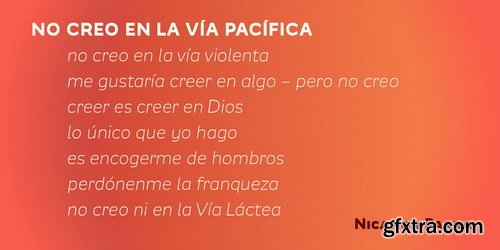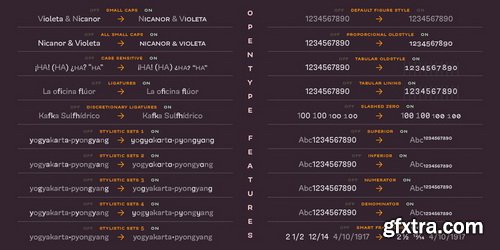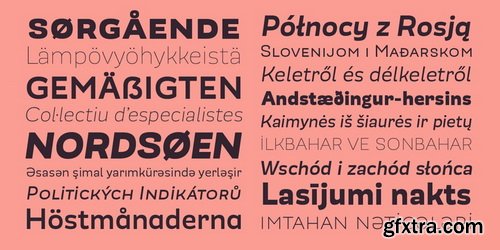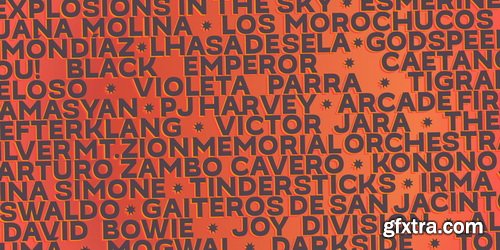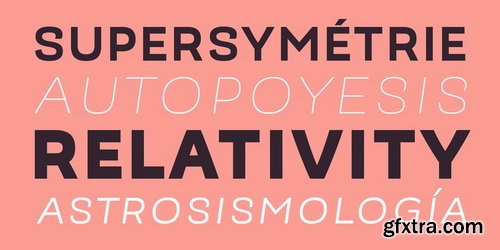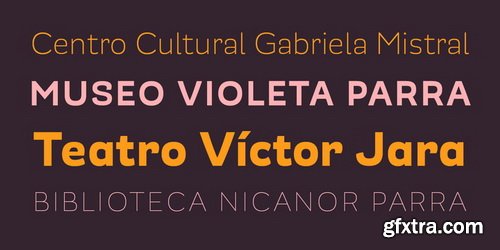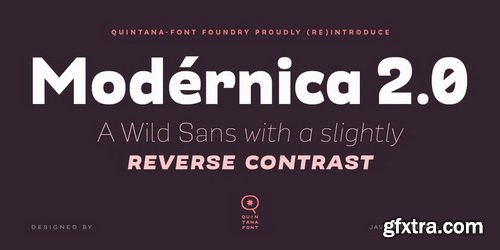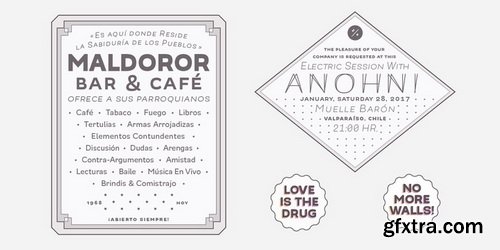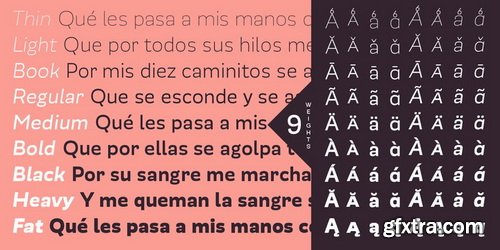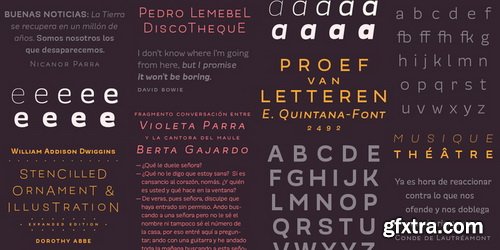
Modérnica was originally published by Latinotype in 2014. Now we (re)introduce a completely reviewed version, under the unipersonal Type Foundry of his author: Quintana-Font. Modérnica is a sans serif type including roman & oblique styles in 9 weights. At this relaunch, we’ve extended the language coverage and included a new Fat weight, tabular figures, smart fractions & arrows. We’ve improved the OpenType features adding new Stylistic Sets. Besides this, we have retuned the letters spacing in the whole family. Seeking for the best performance, we added a bit of spacing between letters in the text versions (middle weights from Book to Bold), while as for the display variants (extreme weights from Thin to Fat) we made them gain space in the light versions and loose it in the blacks. Something we didn’t change for sure is the fluid rhythm & friendly structure of this grotesque family. Modérnica is a tool that provides a wide range of possibilities for the design workflow in different formats. Modérnica is an extension of Mazúrquica (Mazúrquica 2.0 coming soon), a condensed type created for headlines that aim at impact and difference. Based on the Mazúrquica structure, Modérnica was designed as a new typeface for both headlines & continuous text. ‘Mazúrquica Modérnica’ is a song by the great artist & poet Violeta Parra.